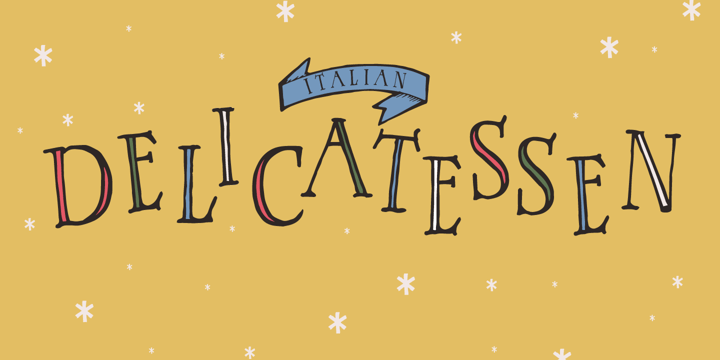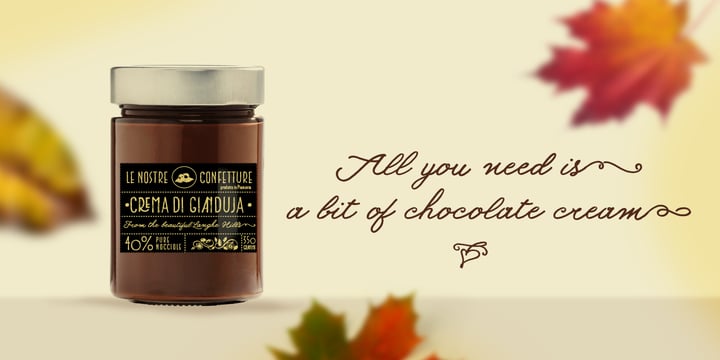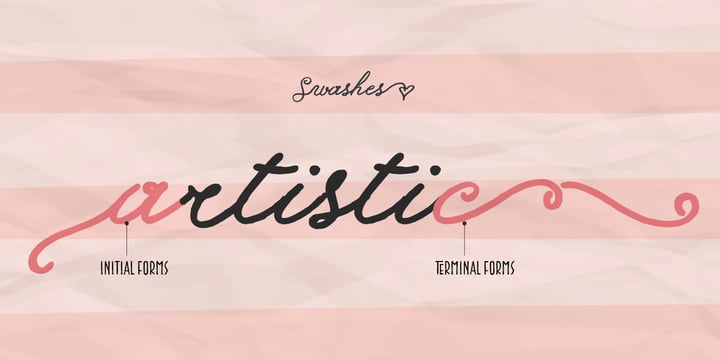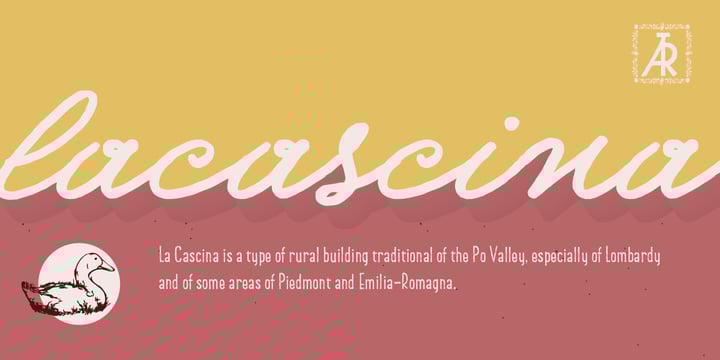
About Gianduja Font Family
This delicious font family takes its name from the tastiest of Piemonte’s specialities. It has been designed in collaboration with Turin-based calligrapher and artisan Andrea Tardivo. Piemonte soil provides the most delectable hazelnuts, which are the key to creating a mouth-watering chocolate spread called Gianduja. This popular delicacy has a rich graphic history, with lavishly designed packaging. We sought to infuse the sweetness and tradition of Turin’s confectionary into a new font family, reinterpreting Italian models from the first quarter of the last century. All fonts were crafted by hand on paper first and then digitised in a way that retains the handmade quality and aesthetic. This family blends the Turinese touch from the old chocolatiers and the beautifully printed foils they use to wrap each exquisite creation. The extensive display family contains; Gianduja Sans a geometric font based on examples found in Italian art deco era artworks. Gianduja Script has been handwritten with a speedball pen following the standards of “Bella Scrittura” and Gianduja Capitals is a decorative font inspired by the “liberty” lettering signs from Piemonte. To complete the suite we developed an inline Capitals version, a set of icons and decorative elements all with the same handmade characters to perfect partner with each character set.
Designers: Andrea Tardivo, Giuseppe Salerno, Paco González
Publisher: Resistenza
Foundry: Resistenza
Design Owner: Resistenza